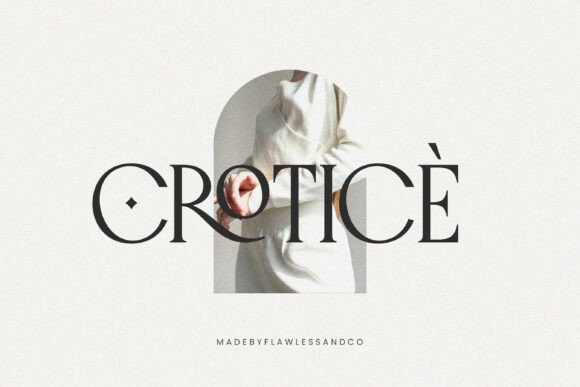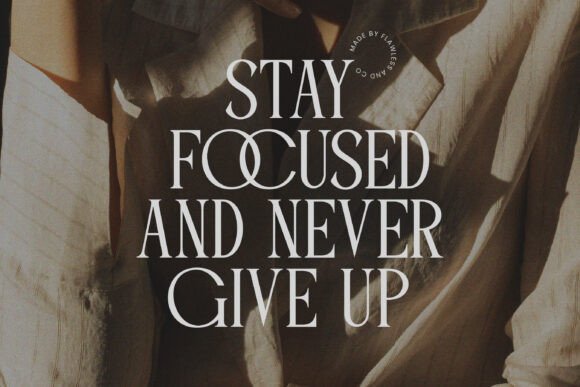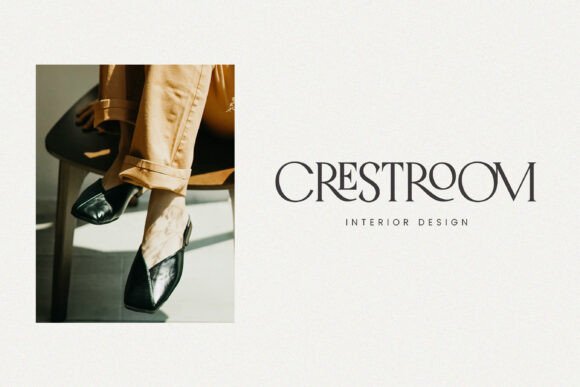
Introduction to Grand Watcher Font
Introducing β€œGrand Watcher,” a refined serif font combining timeless elegance and modern design.
πŸ“Œ Product Name Grand Watcher Font
πŸ‘€ Author Flawless And Co
With its sleek letterforms and beautifully crafted ligatures, Grand Watcher is perfect for adding a touch of sophistication to your projects This font is suitable for any graphic design, such as branding materials, wedding stationery, product packaging, branding and logo, etc.
Key Features of Grand Watcher Font
Why Choose Grand Watcher Font?
Grand Watcher Font offers exceptional quality and versatility, making it a valuable addition to your design toolkit. Whether you’re creating for personal projects or commercial use, Grand Watcher Font delivers professional results.